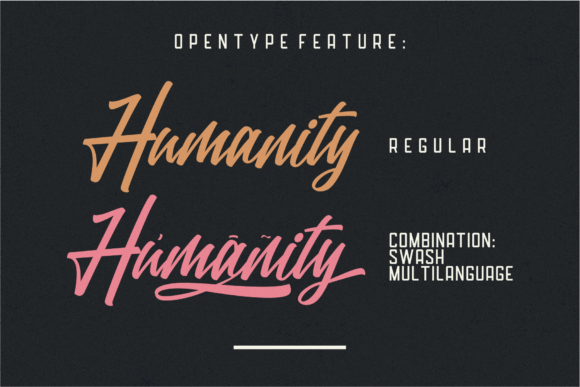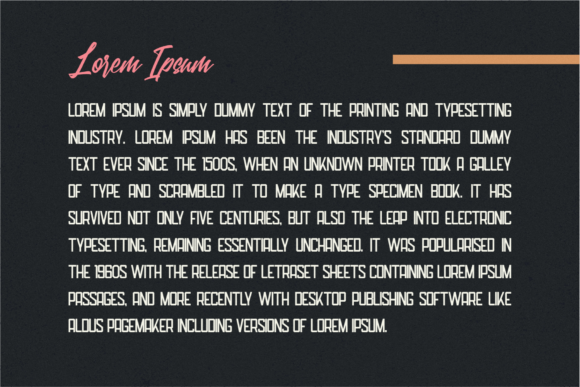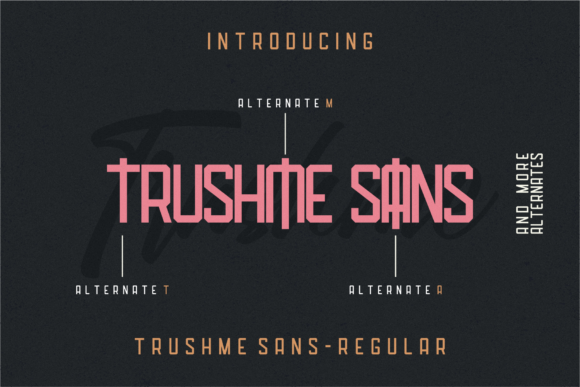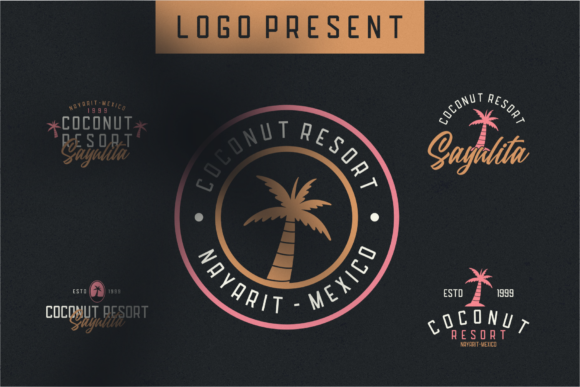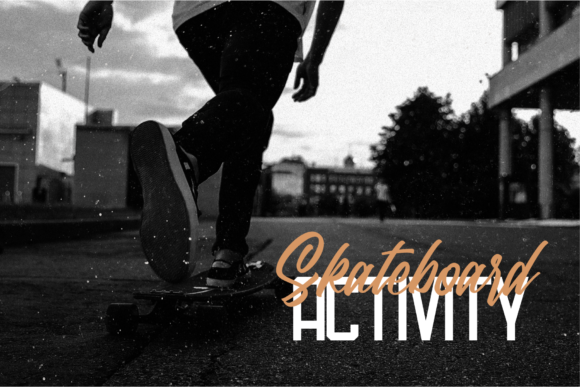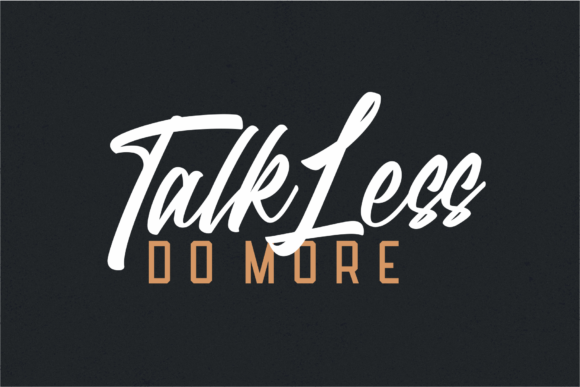
HomeScript FontsTrushme Font Script Fonts Trushme Font FacebookXPinterestWhatsApp Trushme Font Poster 2 Trushme Font Poster 3 Trushme Font Poster 4 Trushme Font Poster 5 Trushme Font Poster 6 Trushme Font Poster 7 About Trushme Font Trushme is a truly beautiful font duo that brings together a bold script and a wonderful sans serif font. DOWNLOAD ON CREATIVE FABRICAThis font is sold and delivered by Creative Fabrica. Font Canyon may earn a commission if you buy through this link. People also explored The Hashtag Rectory Font Halloween Font Rich Royal Font Routinely Script Font Orlando Smith Font Gans Esquinazo Jelline Font Retro Font 350 0 TagsTrushme Font Previous articleMonday FontNext articleBestowens Family Font LEAVE A REPLY Cancel reply Comment: Please enter your comment! Name:* Please enter your name here Email:* You have entered an incorrect email address! Please enter your email address here Website: Save my name, email, and website in this browser for the next time I comment. Personal Use Free Panaroe Personal Use Free Read more about this font Fakedes Personal Use Free Read more about this font Hello December Personal Use Free Read more about this font Hello Sarrah Personal Use Free Read more about this font BLOG Free Fonts Risk: Why Free Fonts Can Be Dangerous for Designers Free Fonts Risk: Why Free Fonts Can Be Dangerous for Designers Using free fonts is a common practice in web and graphic design. However, the... Transform Your Website: Elevate Your Typography with 7 Best Web Font Generators Modern Sans-Serif Fonts That Brands Love in 2025 5 Fonts That Will Dominate Design Trends in 2026